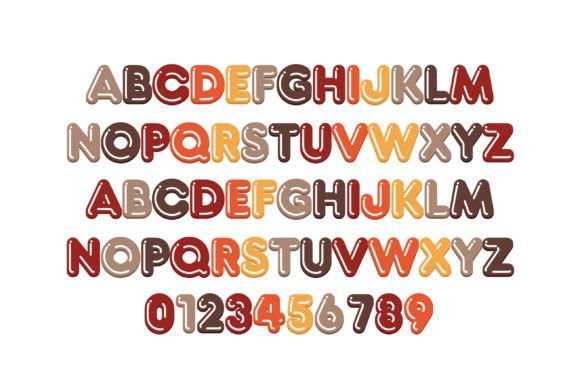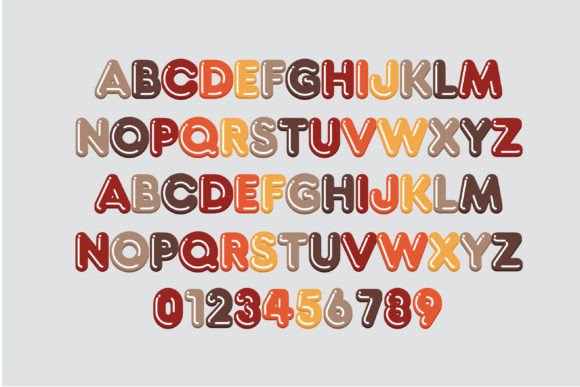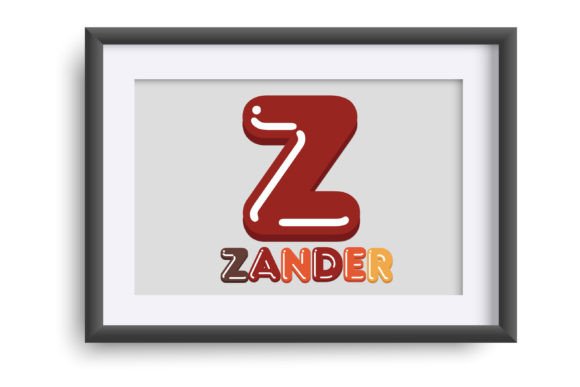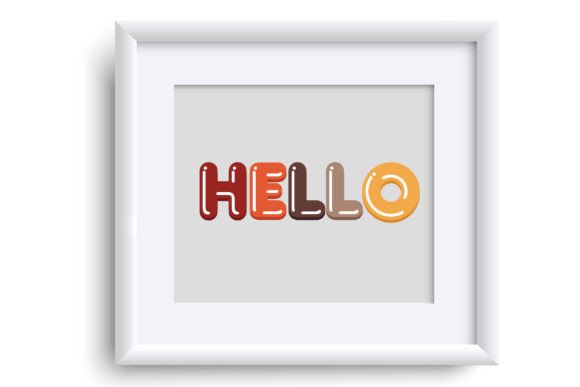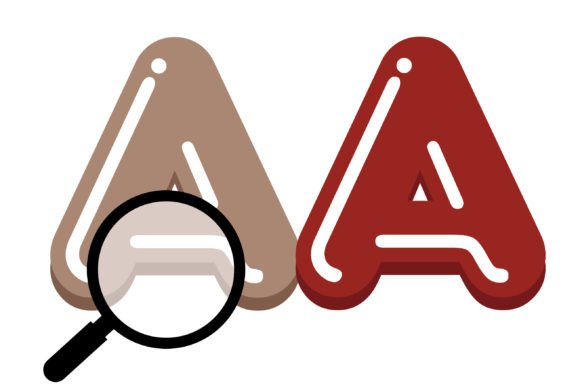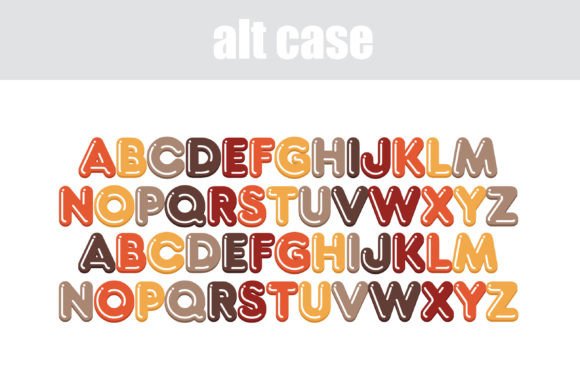
The Bubbly Fall Font: A Playful Twist for Your Designs
Ah, the joys of designing for fall! The leaves are changing, the pumpkins are ripe, and the color palette is richer than ever. But, have you ever found yourself stuck in a design rut, searching for that perfect font to capture the essence of the season? I certainly have! It was during one of those moments, while working on a project for a client who wanted a playful, autumn-themed logo, that I stumbled upon the Bubbly Fall Font.
This full-color font has been a game-changer for my designs, and I’m excited to share its features, quirks, and uses with you. So, let’s dive in!
First Impressions: What I Love About Bubbly Fall Font
• ✨ Playful and whimsical: The Bubbly Fall Font is perfect for designs that need a touch of personality. Its highlighted lettering and autumn color palette make it an excellent choice for fall-themed projects.
• 🎨 Full range of colors and styles: With a variety of colors and styles to choose from, you can create anything from simple text logos to intricate designs.
While the Bubbly Fall Font is an excellent addition to any designer’s toolkit, there are a few things to keep in mind:
The Story Behind Bubbly Fall Font
The Bubbly Fall Font was designed with the intention of capturing the playful, carefree spirit of fall. Its creator, a freelance designer with a passion for typography, wanted to create a font that would add a touch of personality to any design. With its highlighted lettering and autumn color palette, Bubbly Fall Font is sure to bring a smile to your clients’ faces.